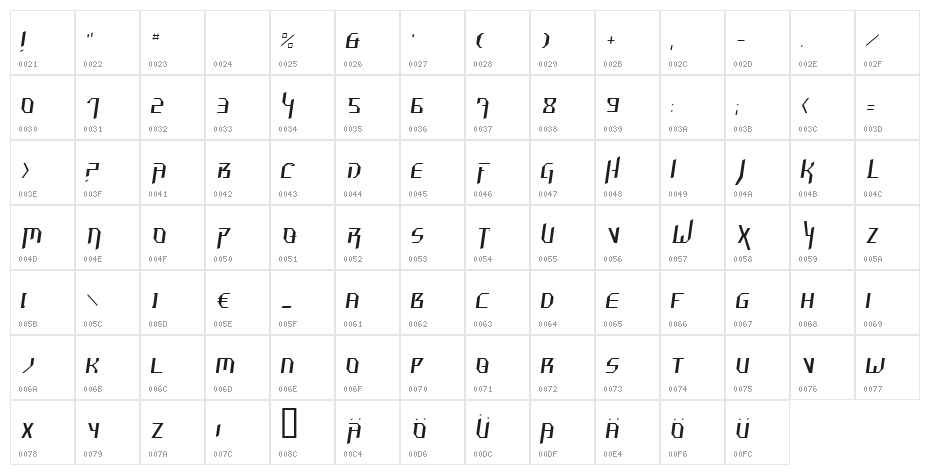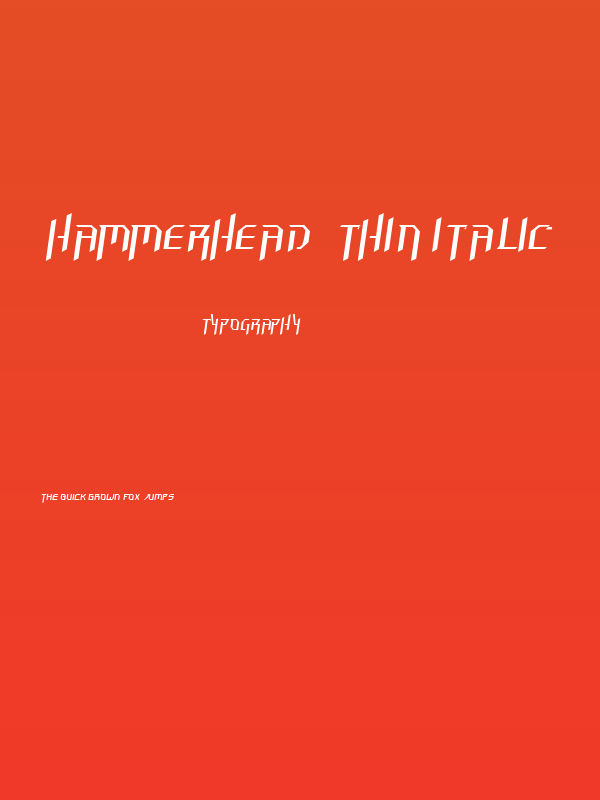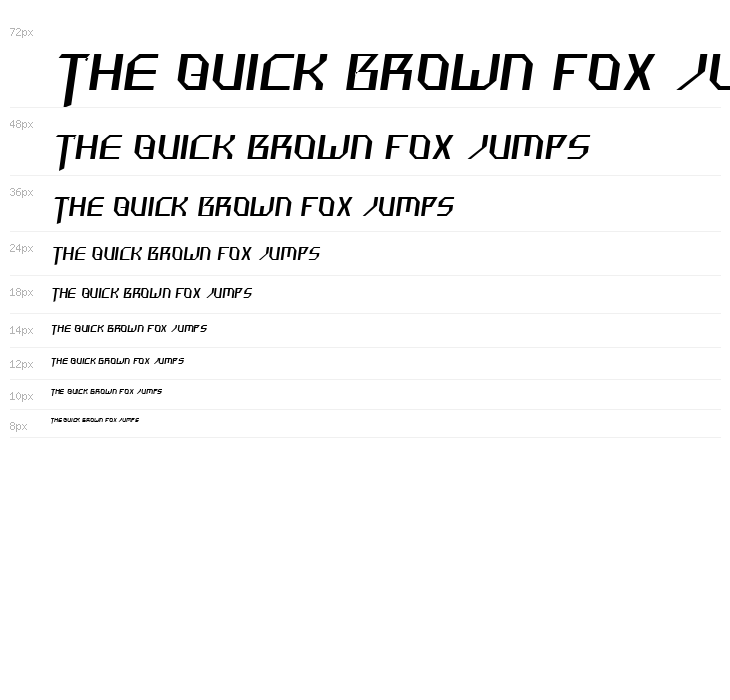
Hammerhead Thin Italic Font
Hammerhead Thin Italic Description
This font exhibits a sharp, angular design with a futuristic and dynamic appearance. The characters are crafted with a distinct slant, giving them a sense of motion and energy. The strokes are thin, yet they maintain a bold presence due to their geometric construction. Each letter features unique cuts and angles, creating a visually striking effect. The uppercase and lowercase letters share a consistent style, while the numerals and special characters complement the overall aesthetic. This font is ideal for projects that require a modern and edgy look.
| Proposed Projects | Ideal for sci-fi themed designs, video game interfaces, modern branding, and edgy poster designs. |